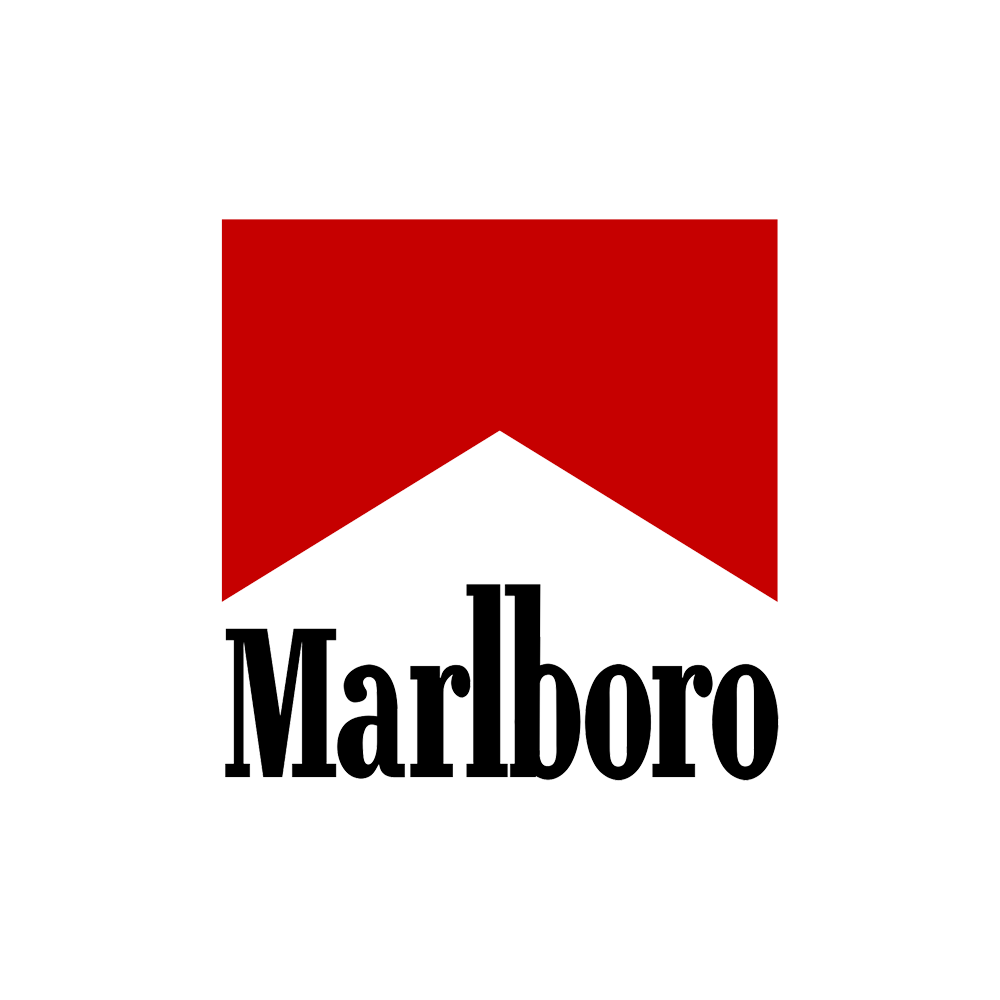
Marlboro Font
LogoMarlboro is a brand of cigarettes made by Philip Morris International, known for its distinctive red and white packaging. It's one of the best-selling cigarette brands in the world, often associated with its iconic cowboy imagery used in advertising.